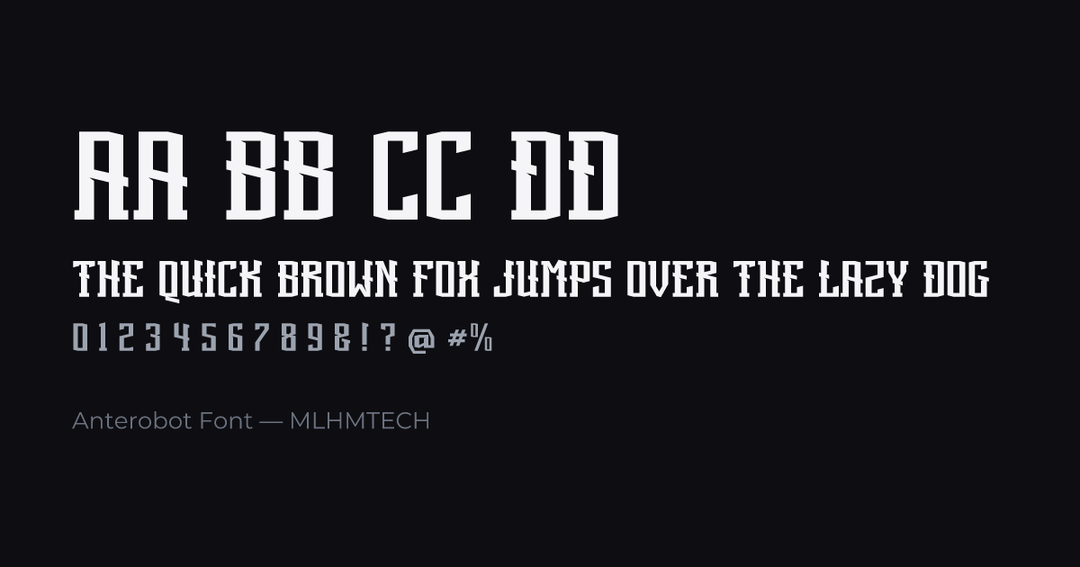
Anterobot Font
Anterobot is a bold, modern display font that adds a unique character to your designs. Ideal for headlines, logos, and branding.
Anterobot is a distinctive display typeface that combines geometric shapes with a touch of futurism. Its bold strokes and sharp edges make it stand out in any context, from posters to social media graphics. This font is handpicked for designers who want to make a statement.
With its wide range of weights and styles, Anterobot offers versatility while maintaining a consistent personality. Whether you're designing a logo, a magazine cover, or a YouTube thumbnail, this font will give your work a professional and edgy look.